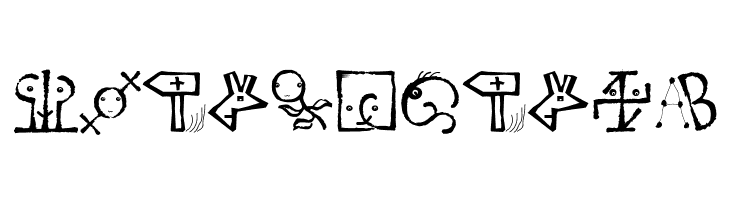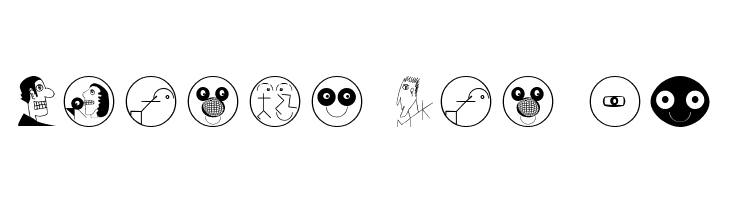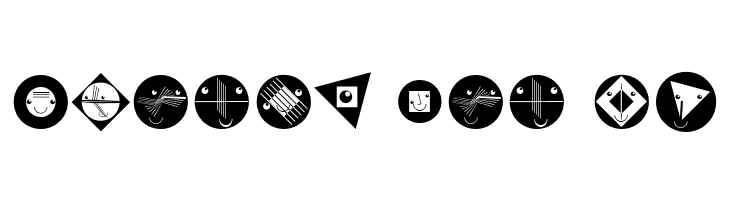
Whimsical, illustrative font with abstract and cartoonish glyphs.
Abstract geometric font with playful faces and bold shapes.
A collection of abstract, hand-drawn symbols with a tribal and artistic aesthetic.